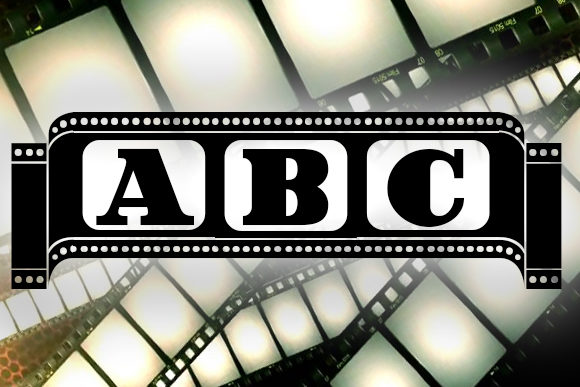
Introduction to Film Letters Font
Film Letters is an awesome decorative font done in old movie film style.
It would look great on any poster, banner, or headline .